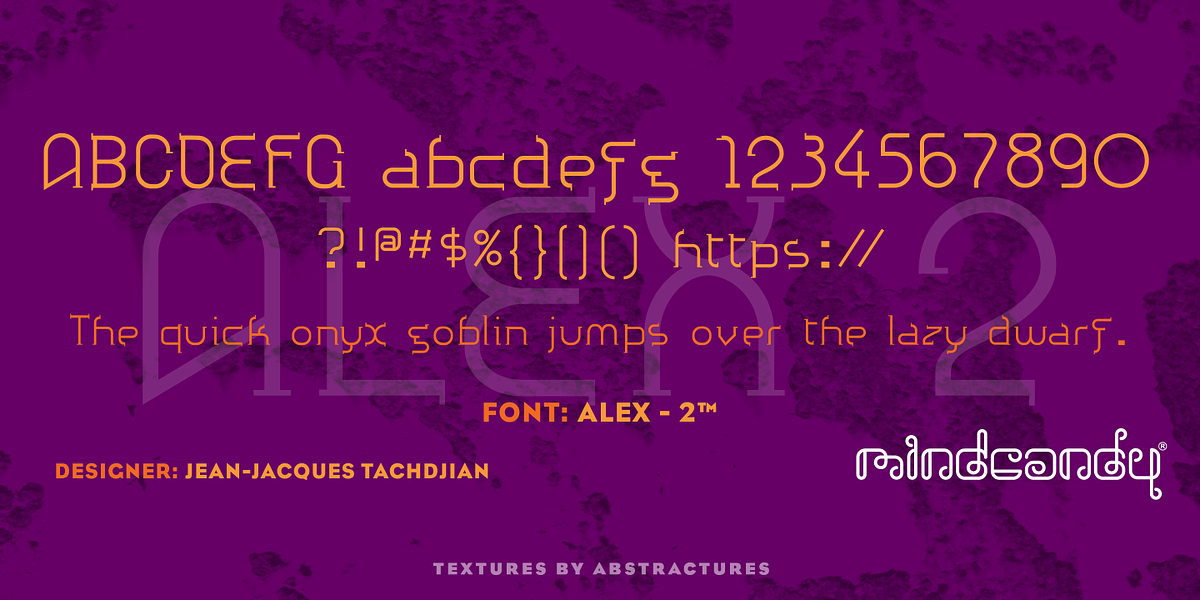
Alex2™
Alex™ 2 is a unique display slab serif font designed by Jean-Jacques Tachdjian. It's characterized by its simplified, post-modern design and uneven letterforms, making it a standout choice for branding.